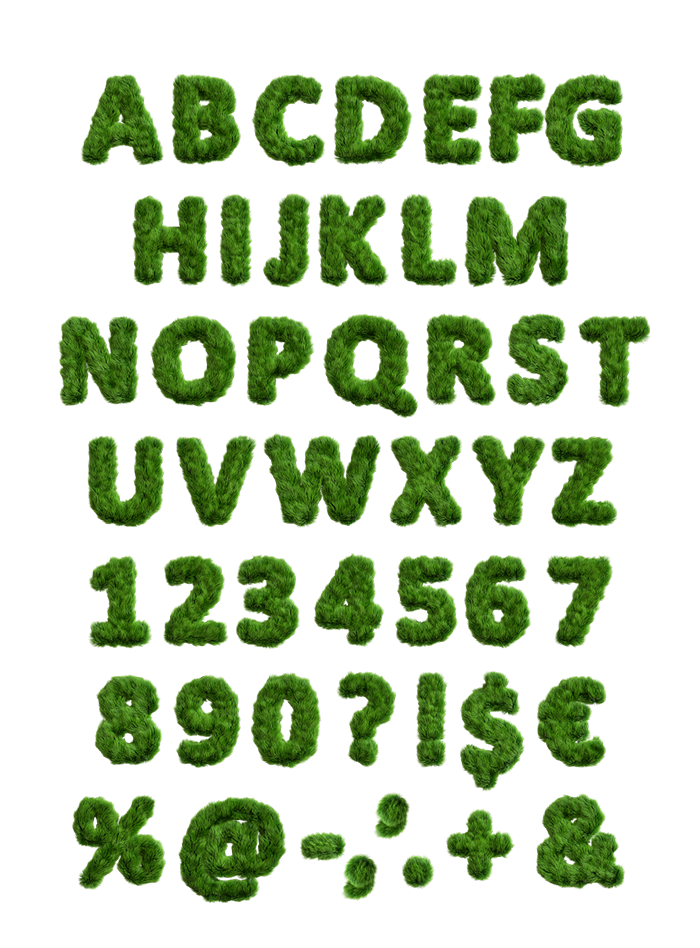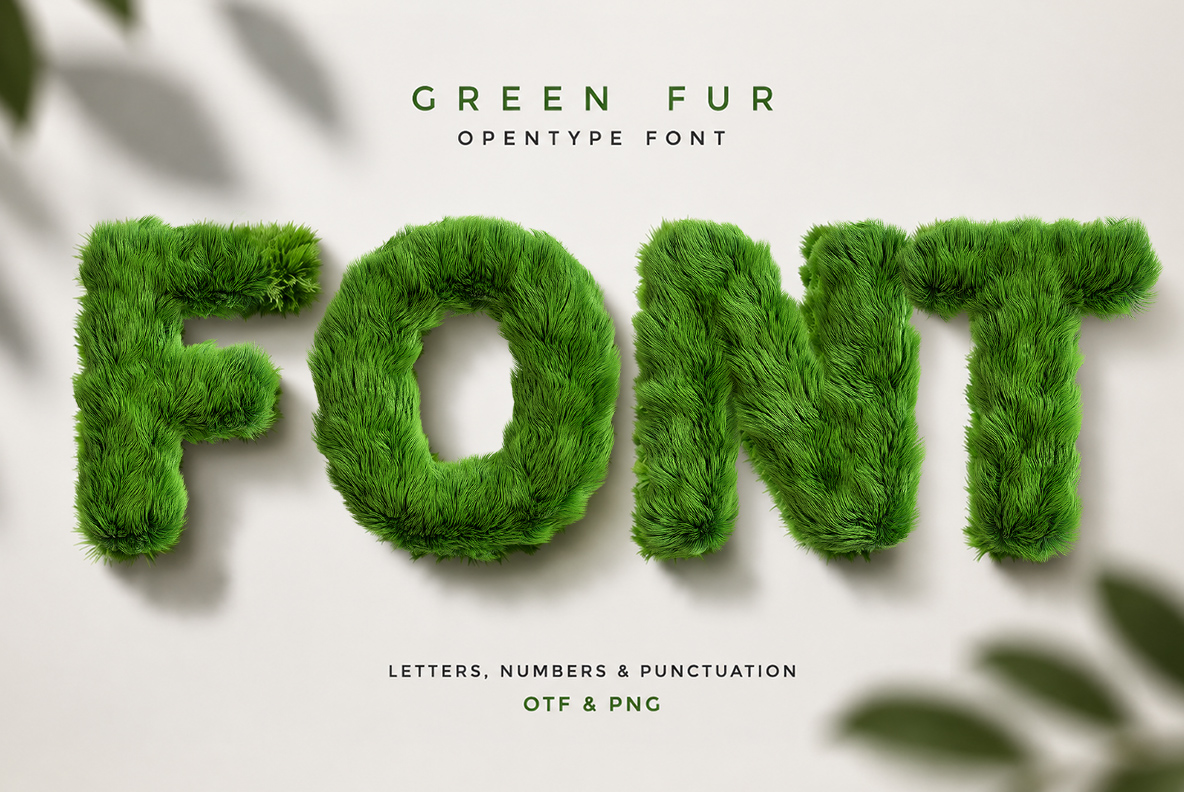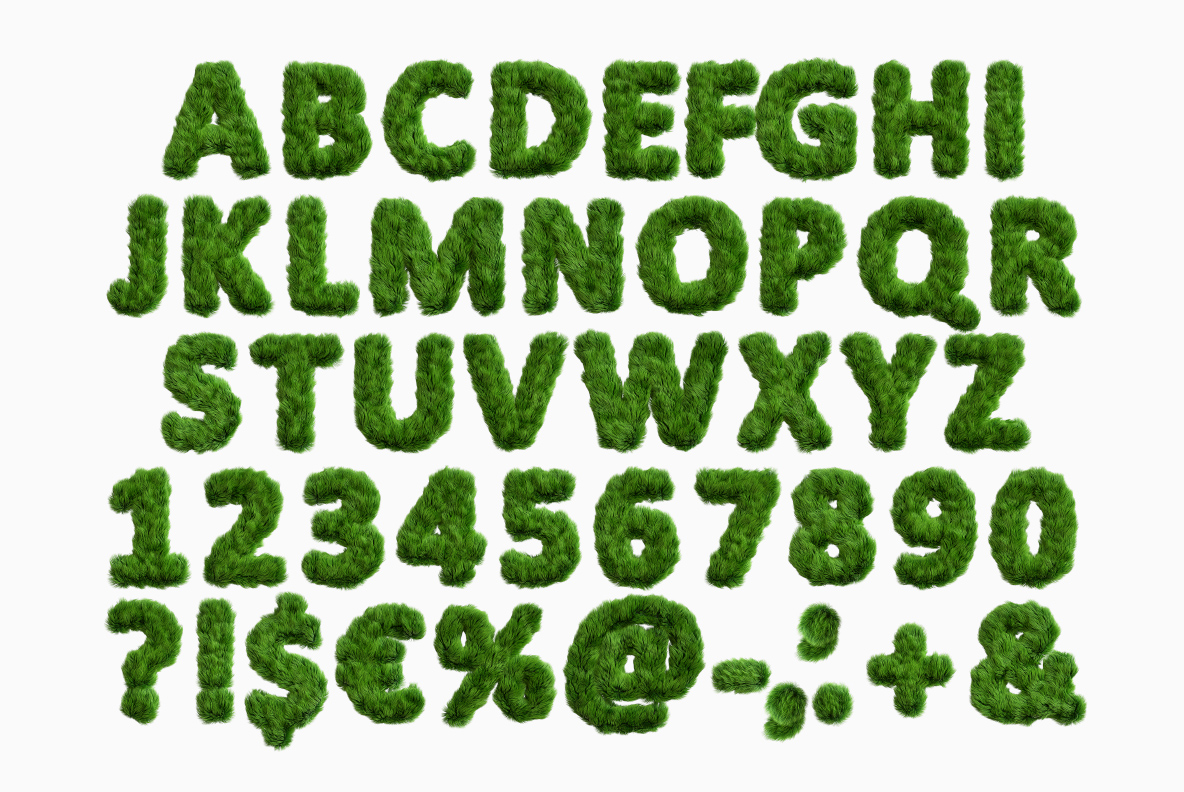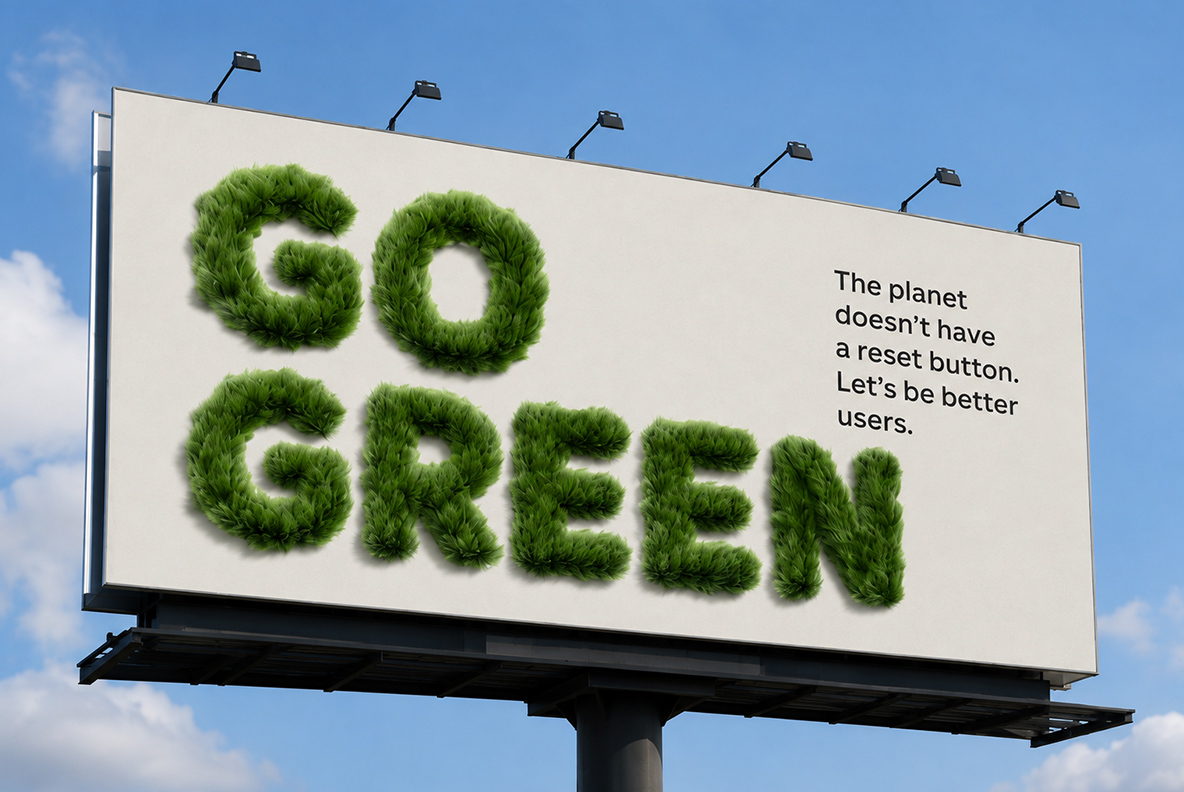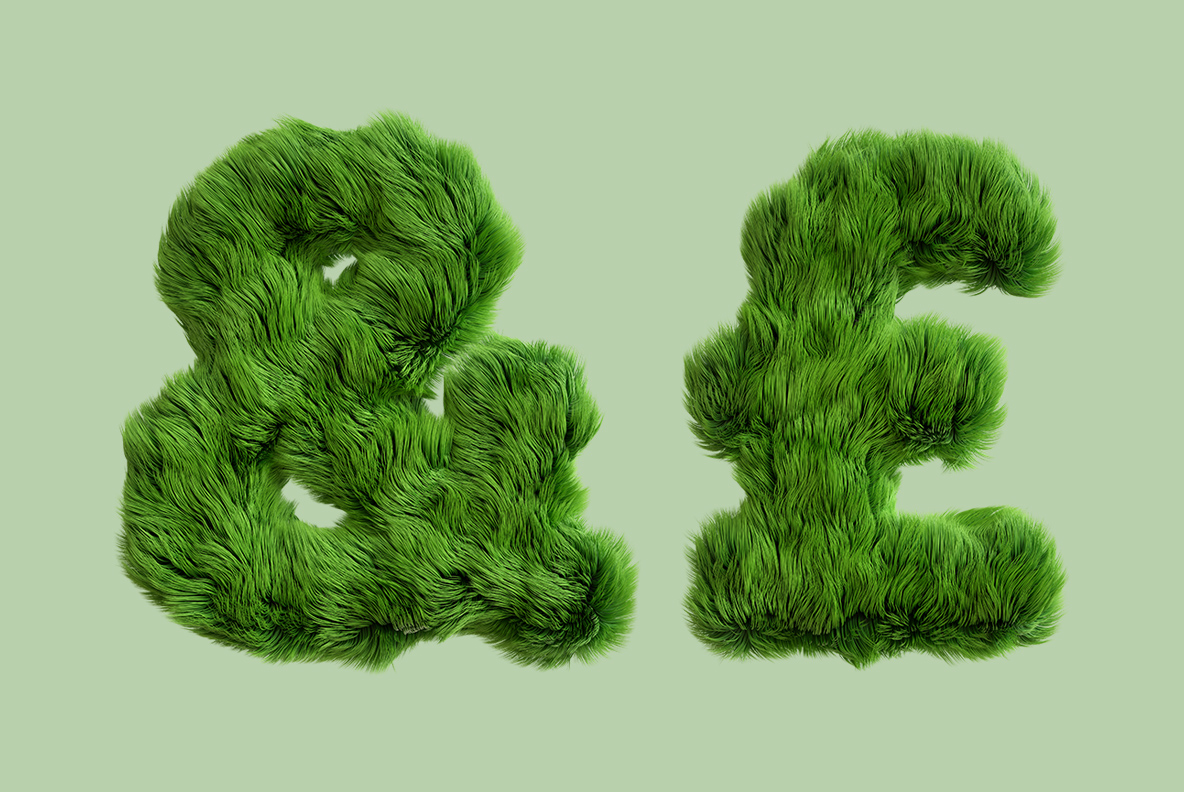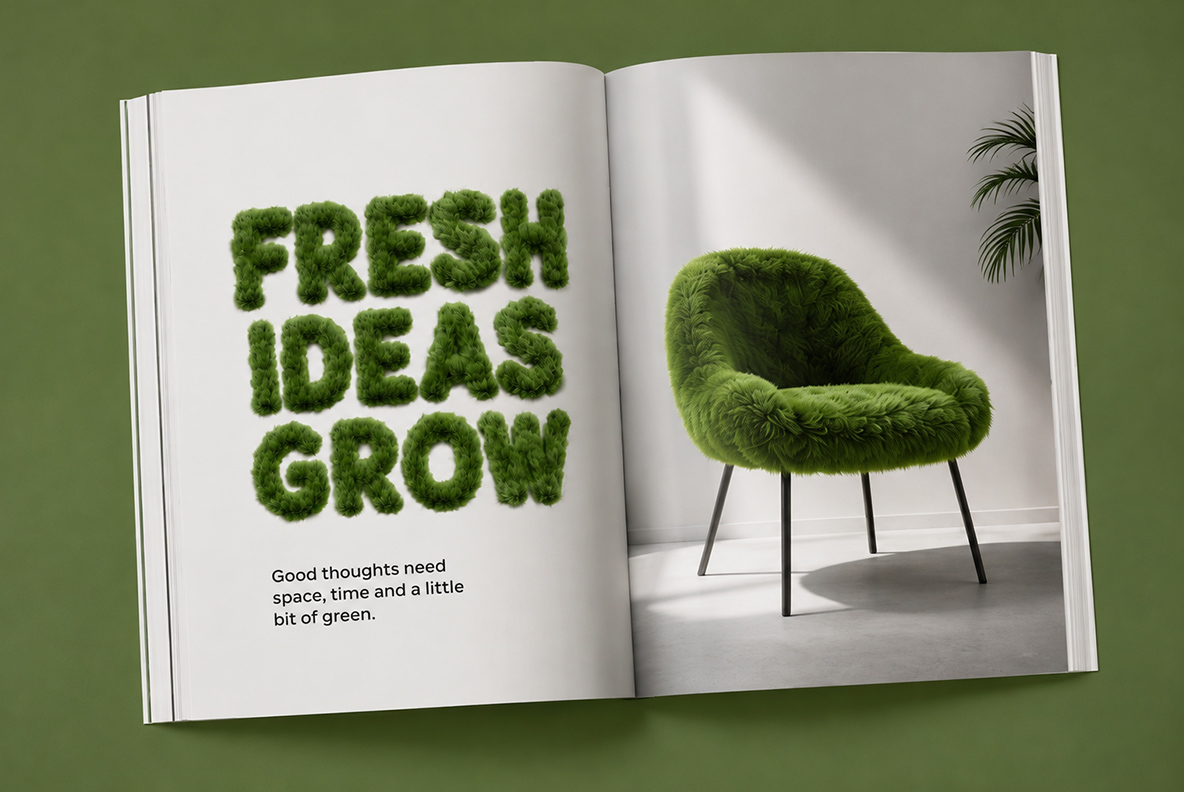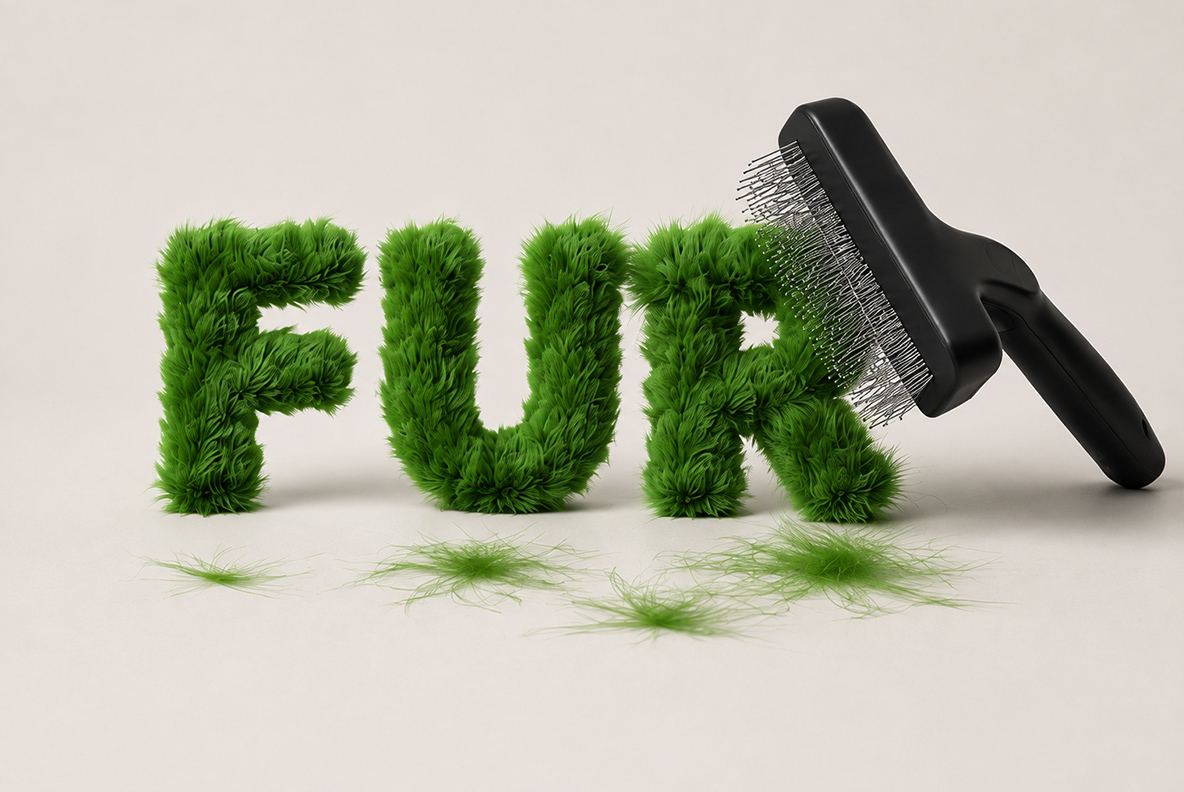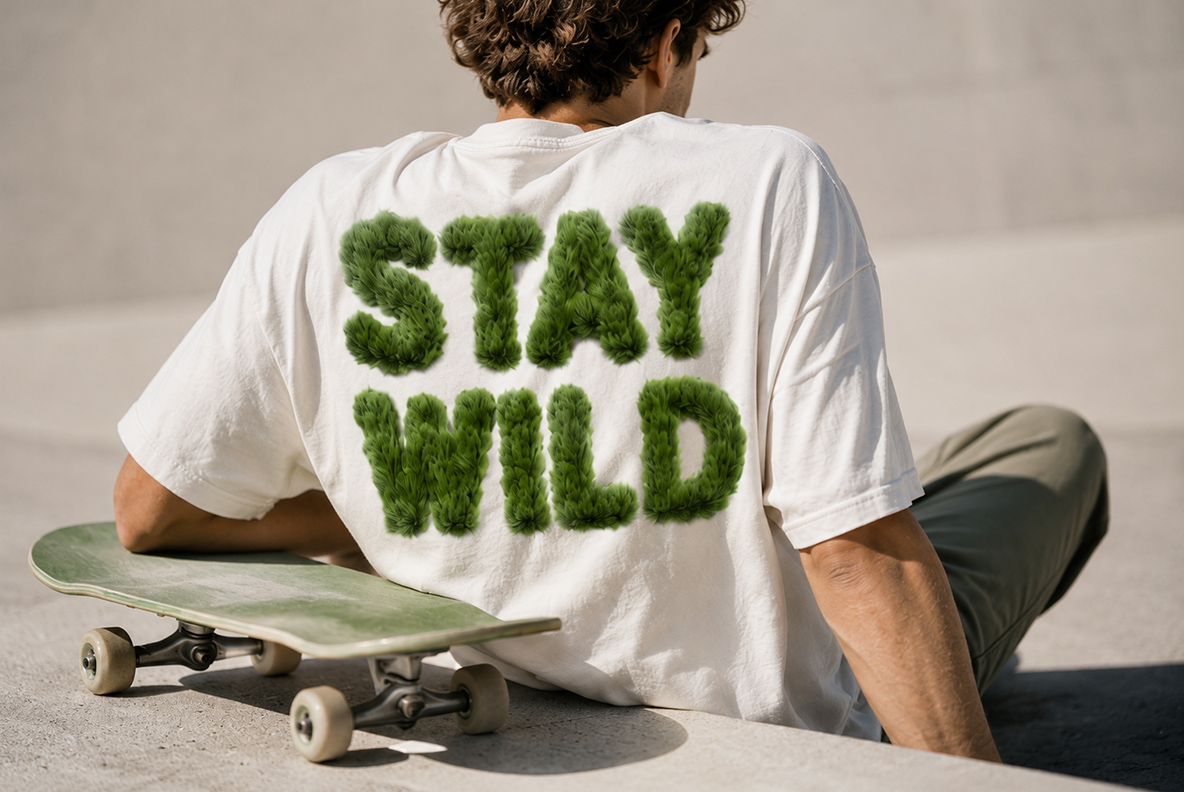
Green Fur Font. Typography you can actually pet!
Bold rounded capitals under a thick coat of grass-green fur, brushed into swirls that catch the light. The Green Fur Font looks soft enough to stroke, and it carries an eco message before anyone reads the words. Letters, numbers and punctuation are all covered, plus mockups on billboards, tees, cushions and magazine spreads. Comes as an OTF plus transparent PNG letters.
Fur That Grew Long Enough to Need a Brush
Somebody let this alphabet skip its grooming appointment, and honestly the result is better for it. Every letter wears a coat of long grass-green hair, brushed into swirls and cowlicks. Near the tips the strands catch light, so the colour slides from lime to deep forest. Underneath, though, the shapes stay a fat rounded sans, and nothing gets lost in the fluff. Loose clippings even lie on the ground beside a few of the words.
Why the Green Fur Font Stops a Scroll
Of course, green reads as nature before anyone finishes the first word. So this typeface does half your messaging while the reader is still squinting. Also, fur is a texture people want to touch, and a screen refuses them that. Meanwhile that small frustration holds eyes on a headline a second longer. Besides, almost nothing else on a page has hair. Our Grassland Font stands its blades upright instead, while the Green Fur Font lies down soft.
Animated preview cycling through shaggy letters of the Green Fur Font
Where a Shaggy Alphabet Actually Belongs
Naturally, eco brands reach for it first. One mockup shouts GO GREEN from a roadside billboard, and another whispers FRESH IDEAS GROW across a magazine spread. Then a skate tee wears STAY WILD, while a plump cushion carries a very literal SOFT. One shot even sets the word FUR beside a pet slicker brush, with clippings scattered underneath. Garden centres, plant shops, kids packaging and festival posters all suit it too.
Bringing the Green Fur Font Home
The word FONT in long grass-green fur, title card for the Green Fur Font
Complete alphabet, numbers and punctuation of the Green Fur Font on white
Roadside billboard reading GO GREEN set in the Green Fur Font
Furry ampersand and pound symbol from the Green Fur Font on a sage background
Magazine spread reading FRESH IDEAS GROW in the Green Fur Font beside a furry armchair
The word FUR in the Green Fur Font next to a slicker brush and loose clippings
Skater wearing a tee printed STAY WILD in the Green Fur Font
The word GREEN in the Green Fur Font with a paint roller laying down green paint
The word YES in the Green Fur Font above a thumbs-up in a furry sleeve
The word SOFT in the Green Fur Font resting on a plump cream cushion
Letters A to D and numbers 1 to 4 of the Green Fur Font on a transparent background